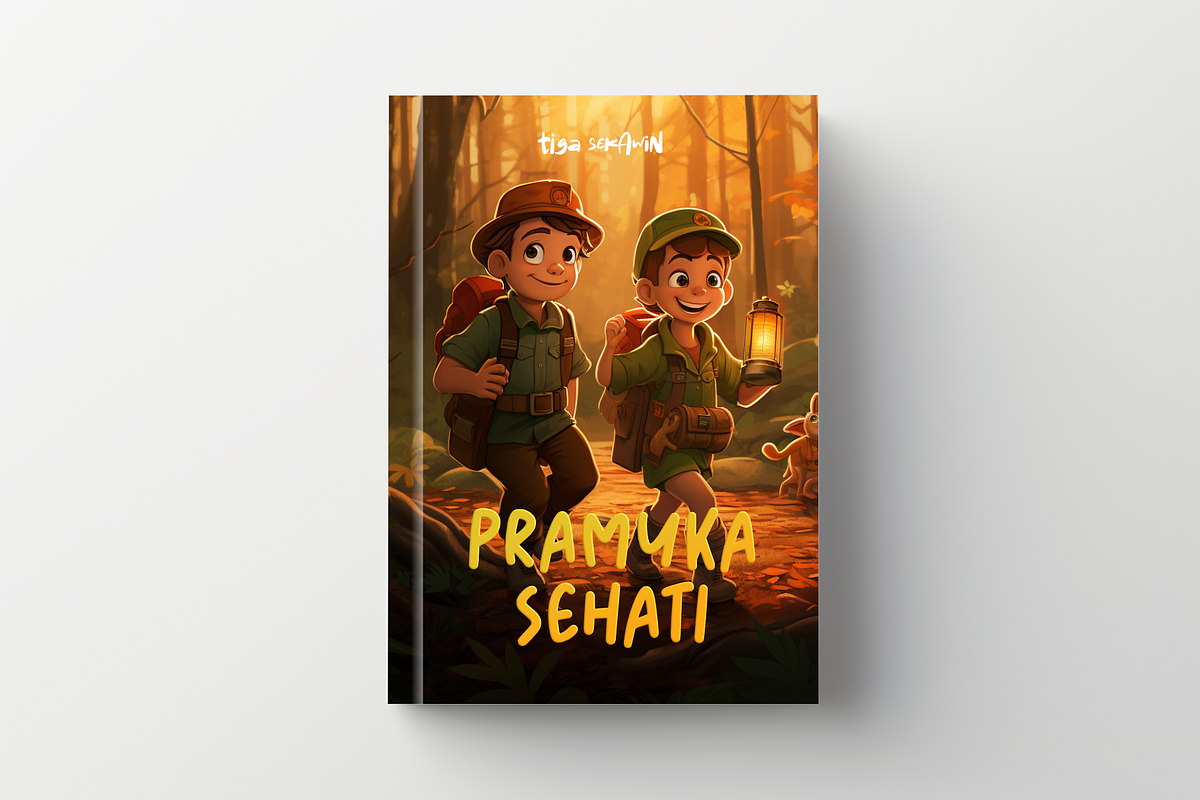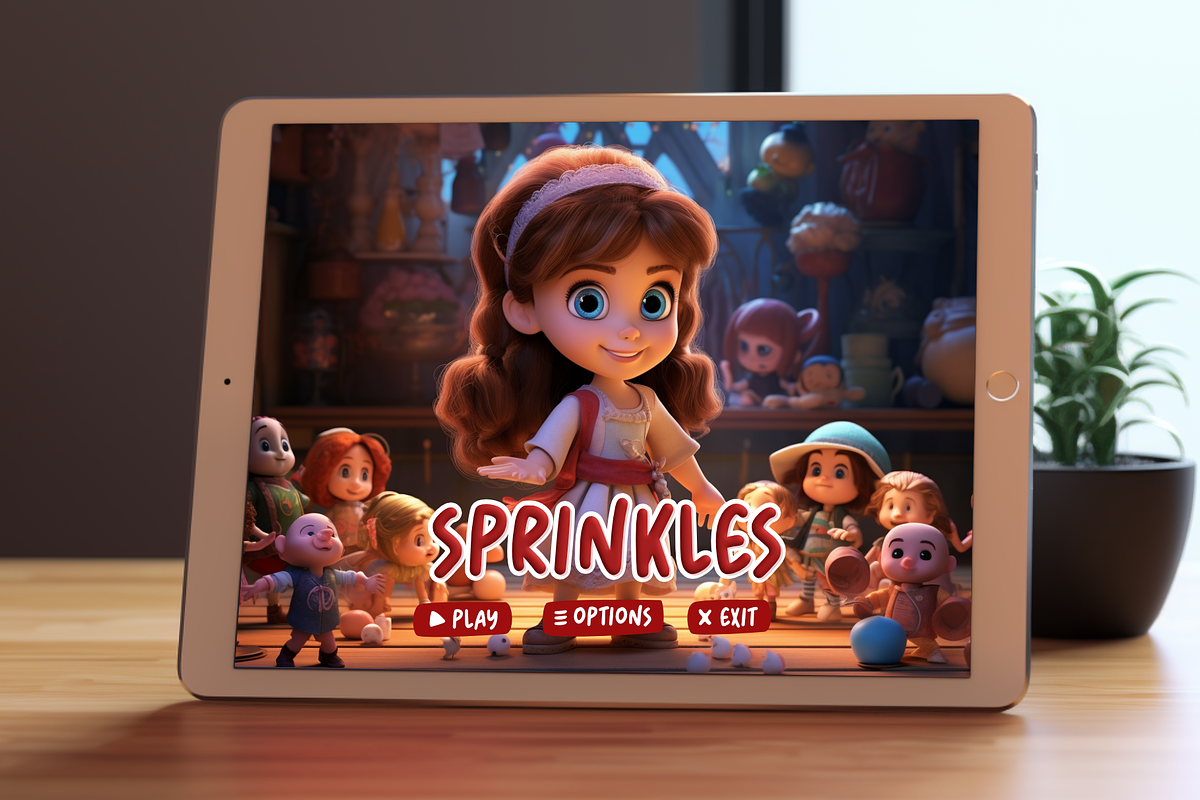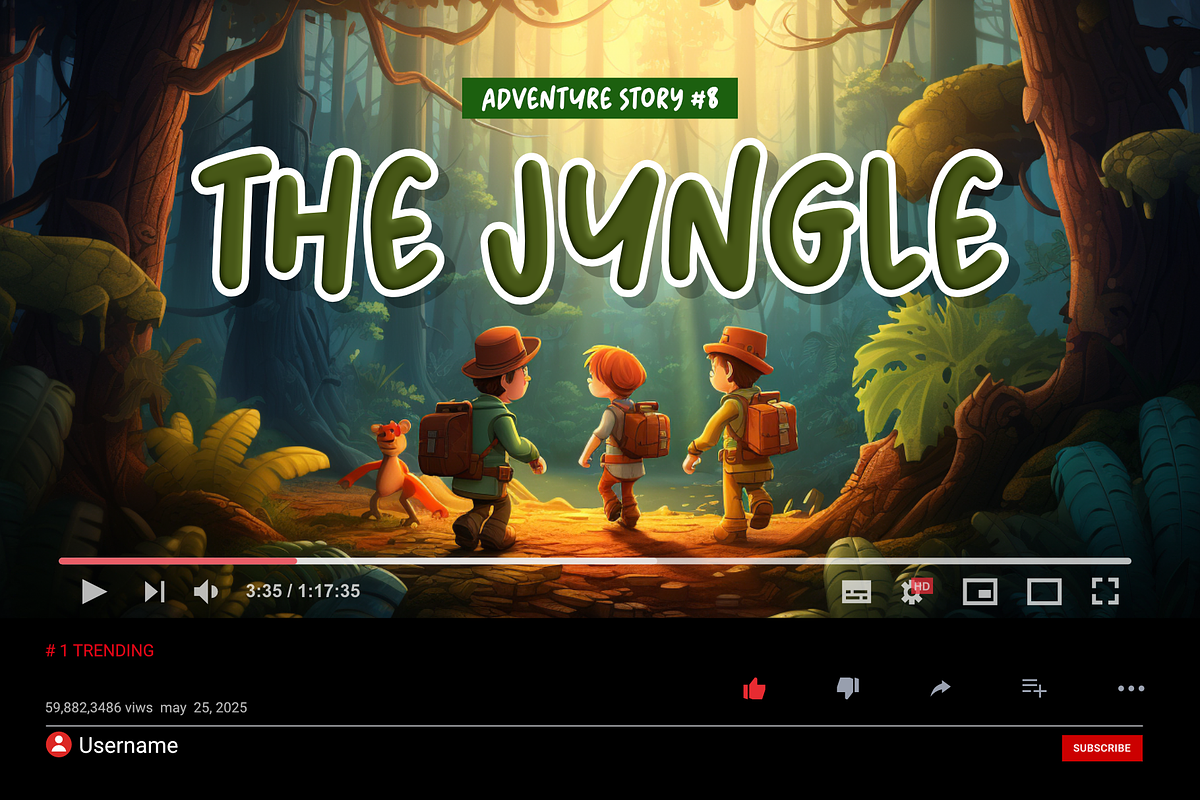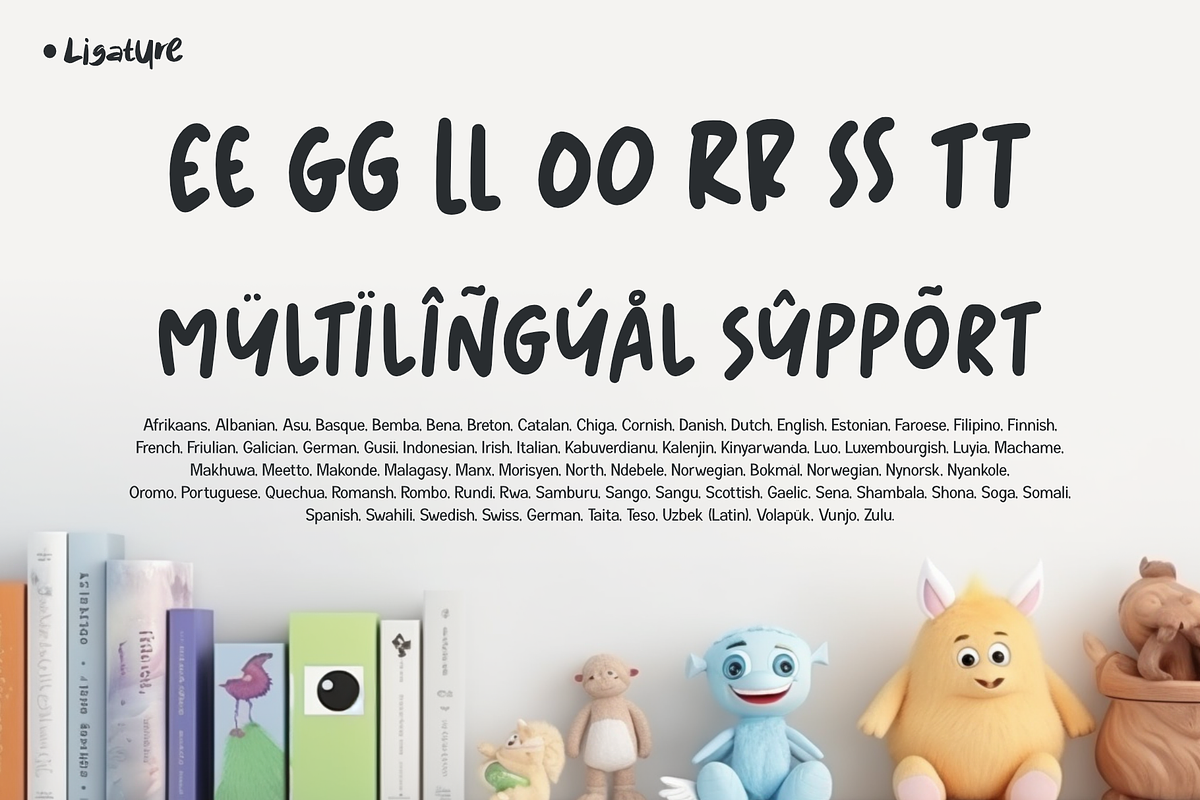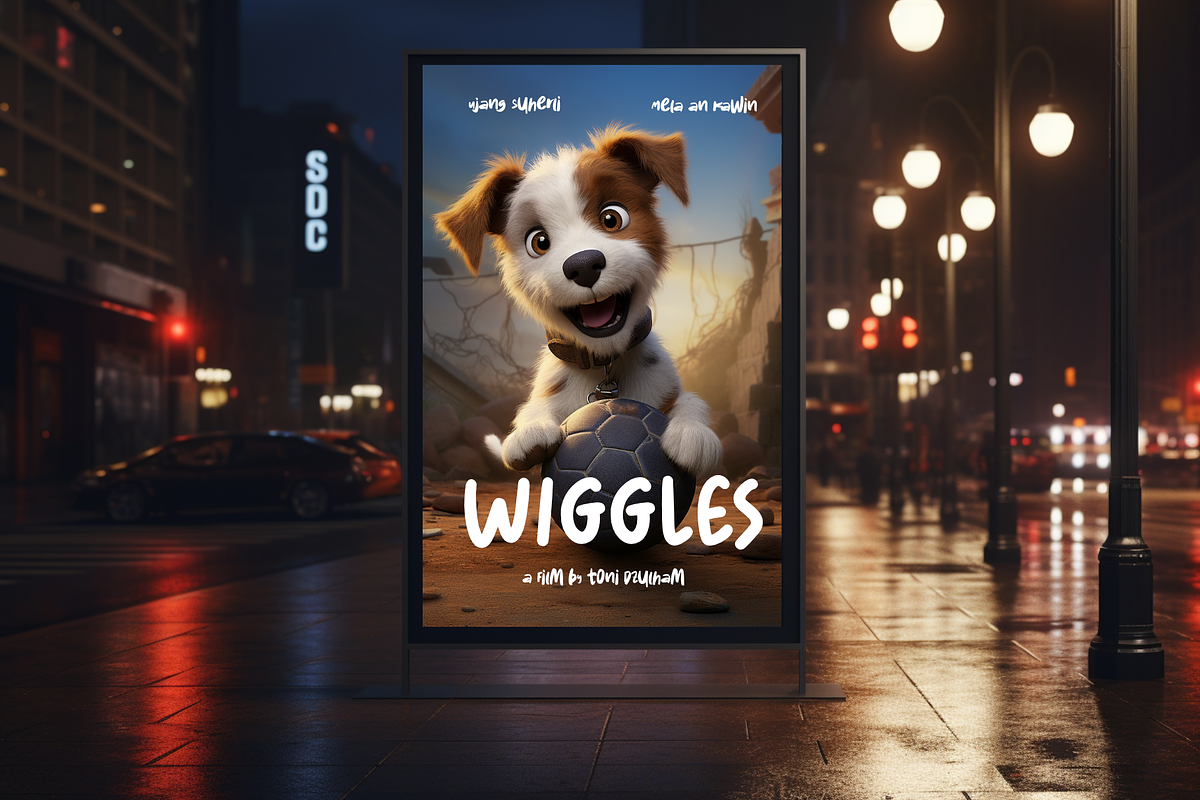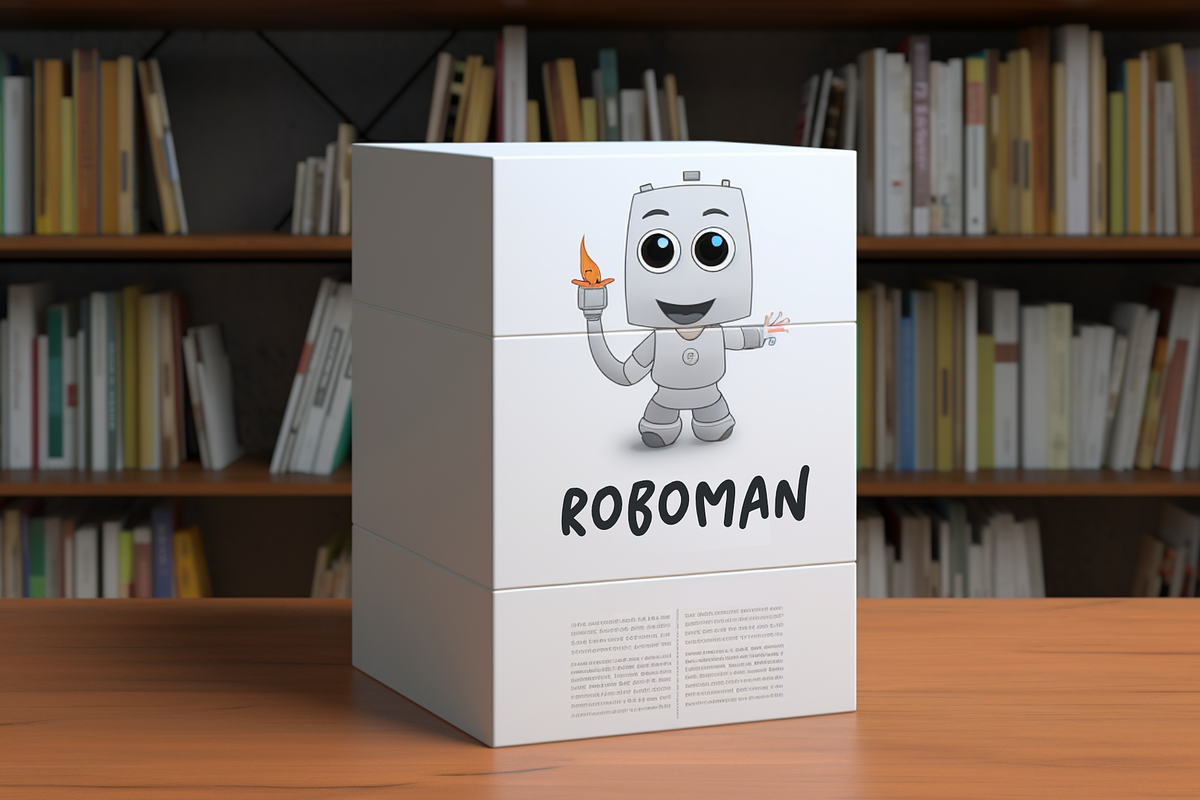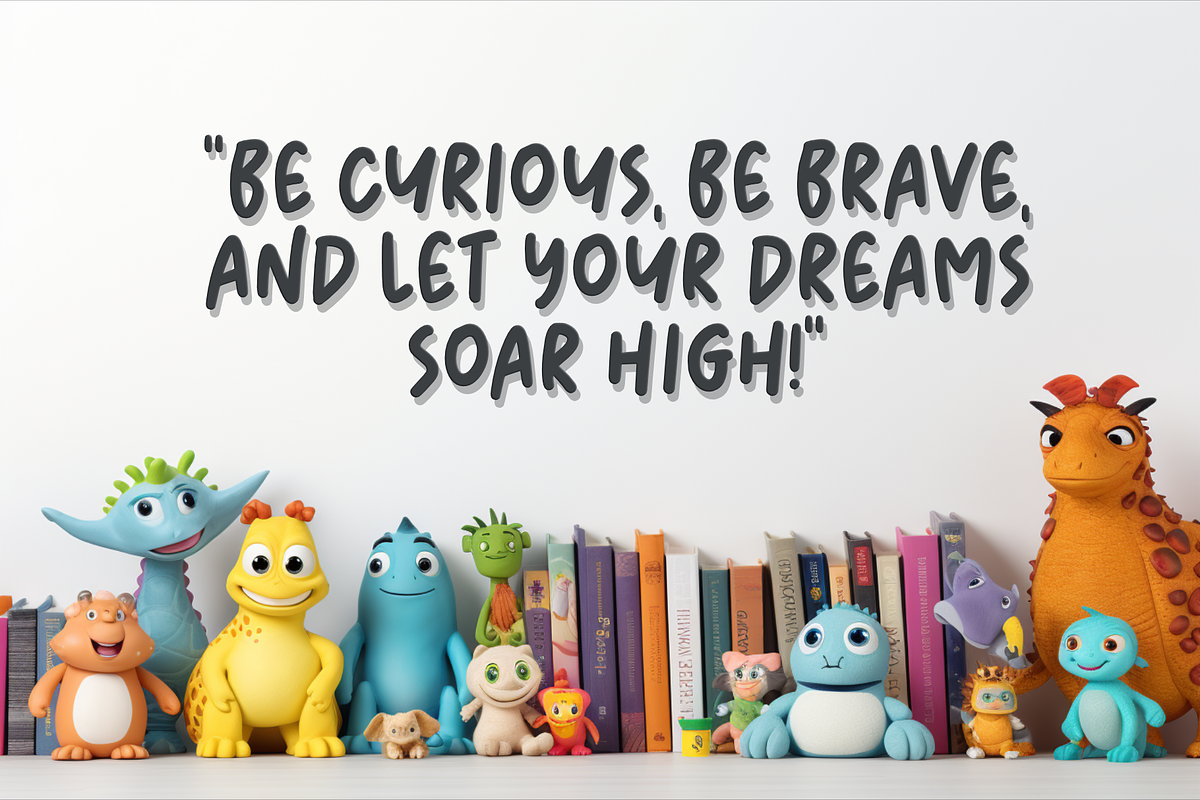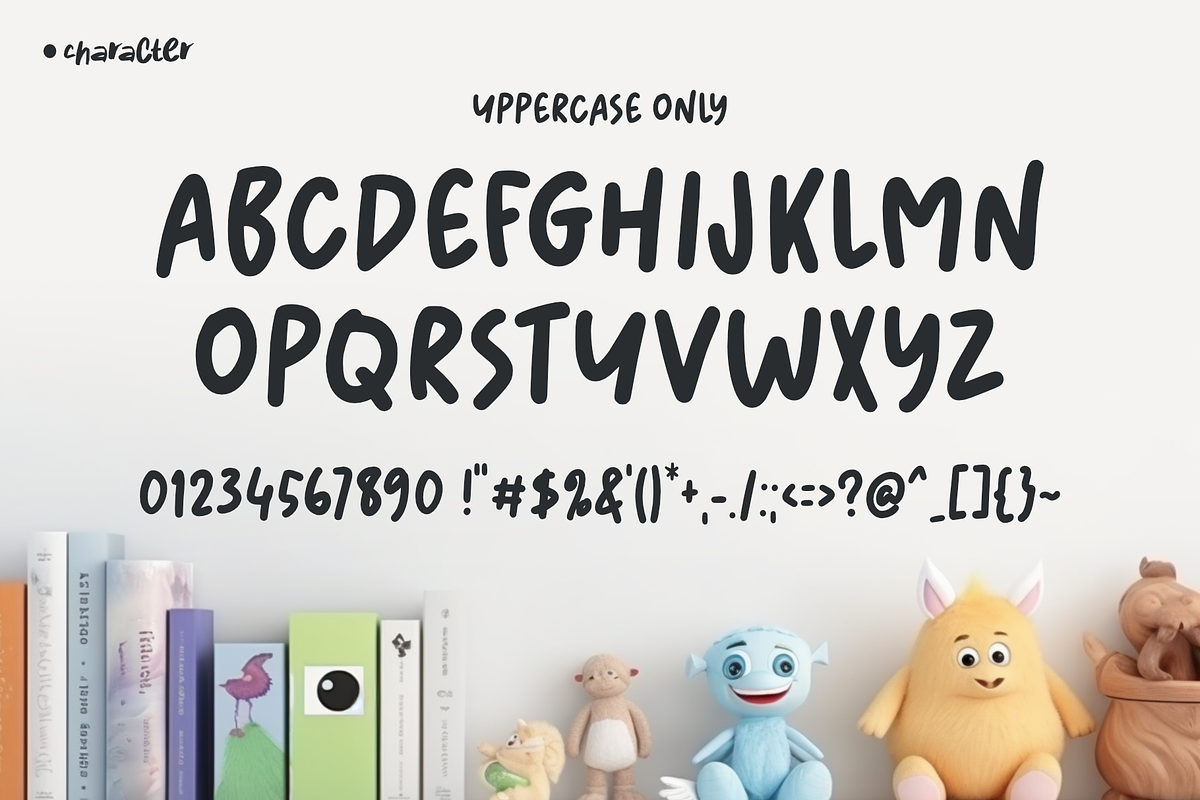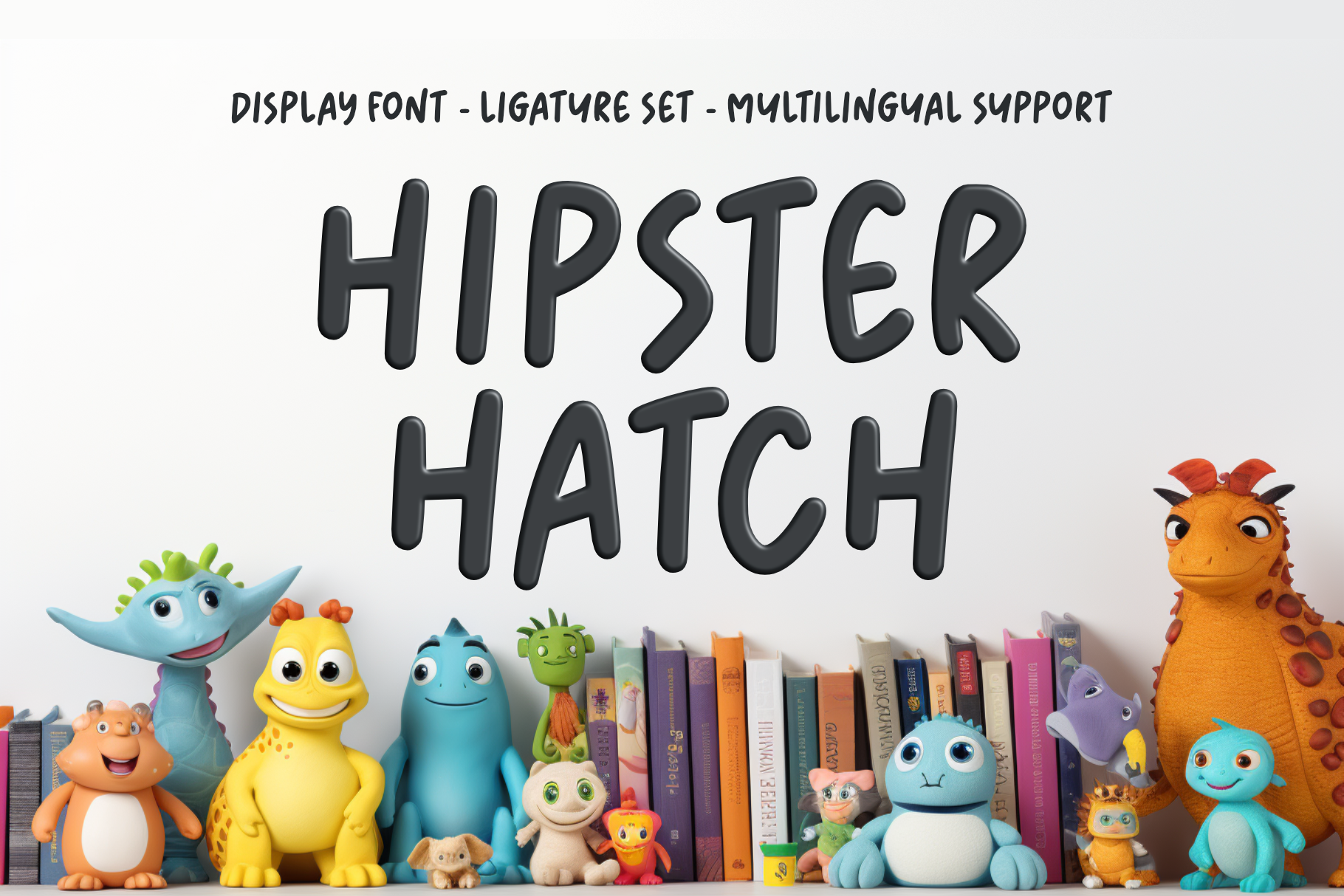
Hipster Hatch - Display Font
Hipster Hatch is a playful and vibrant font display designed specifically for designers working on children's design projects. With its unique and quirky style, this font adds a touch of whimsy and creativity to any design. The uppercase letters give it a bold and captivating presence, making it perfect for headlines, logos, and eye-catching titles.
Hipster Hatch is all about embracing colors and bringing designs to life. With its full-color palette, each letter becomes a canvas for vibrant and cheerful combinations, making it an ideal choice for projects targeting children. Whether it's a picture book, a poster, or a website, this font will instantly captivate young minds and spark their imagination.
So if you're a designer looking to add a dash of fun and charm to your children's design projects, Hipster Hatch is the perfect choice. Let this font hatch your creative ideas and bring smiles to the faces of both children and adults alike.
- Ligature Set
- Multilingual Accent
This Font Support Languages : Afrikaans, Albanian, Asu, Basque, Bemba, Bena, Breton, Catalan, Chiga, Cornish, Danish, Dutch, English, Estonian, Faroese, Filipino, Finnish, French, Friulian, Galician, German, Gusii, Indonesian, Irish, Italian, Kabuverdianu, Kalenjin, Kinyarwanda, Luo, Luxembourgish, Luyia, Machame, Makhuwa, Meetto, Makonde, Malagasy, Manx, Morisyen, North, Ndebele, Norwegian, Bokmål, Norwegian, Nynorsk, Nyankole, Oromo, Portuguese, Quechua, Romansh, Rombo, Rundi, Rwa, Samburu, Sango, Sangu, Scottish, Gaelic, Sena, Shambala, Shona, Soga, Somali, Spanish, Swahili, Swedish, Swiss, German, Taita, Teso, Uzbek (Latin), Volapük, Vunjo, Zulu.